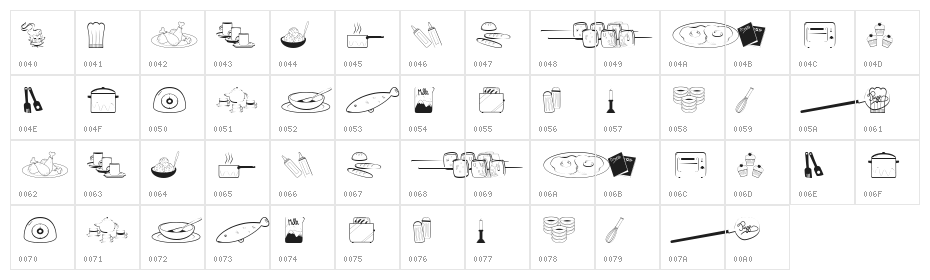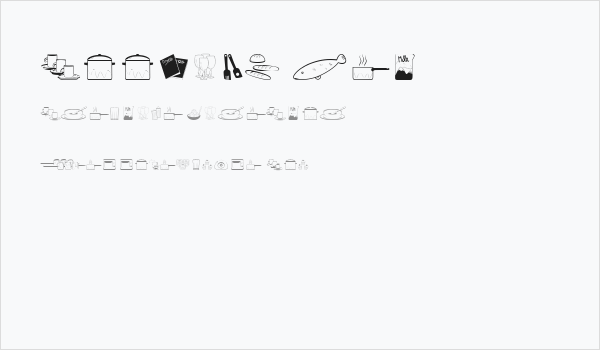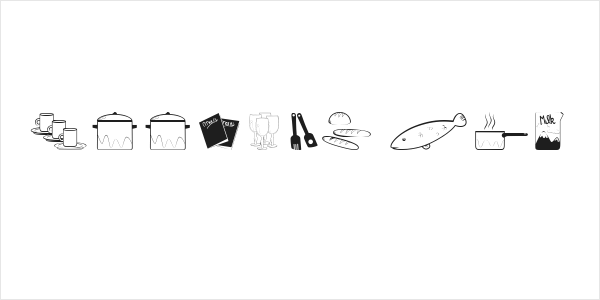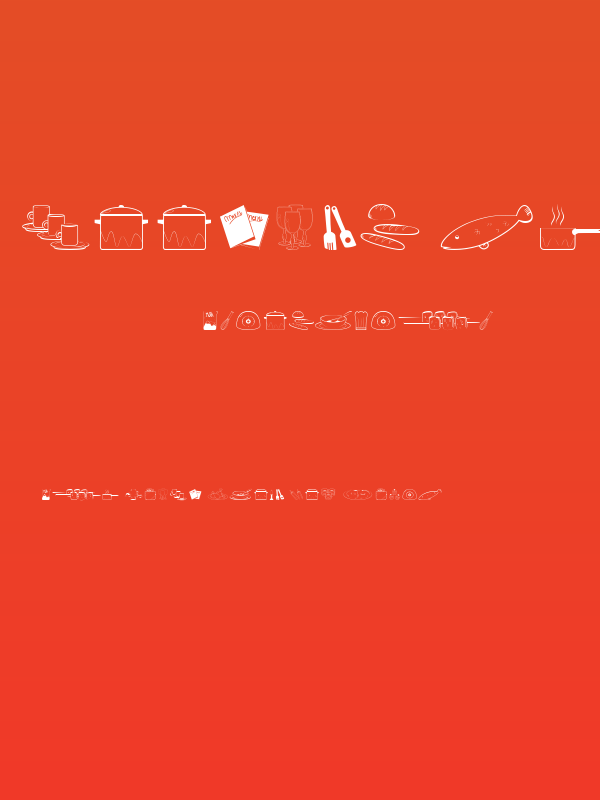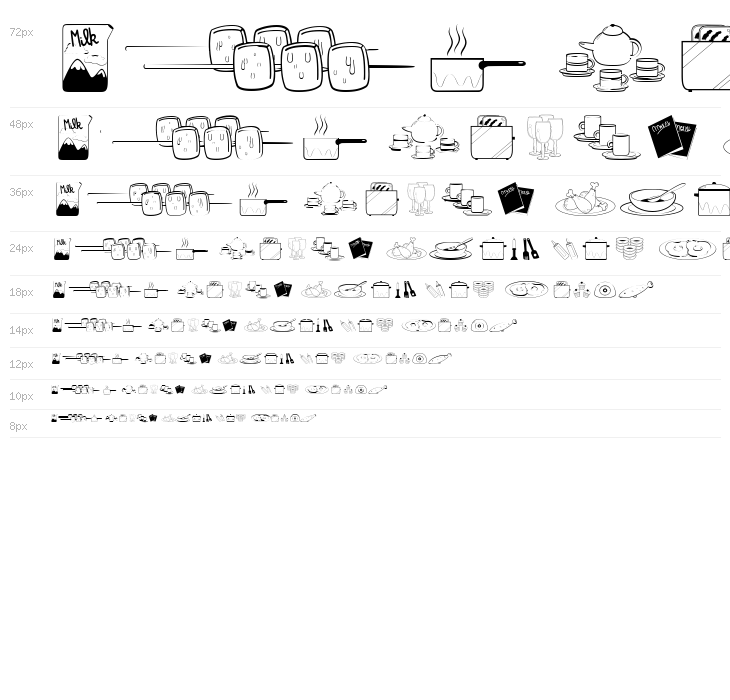
Cooking Set Font
Cooking Set Description
This set of icons features a variety of cooking-related illustrations, each representing different kitchen items and food elements. The icons are designed with a clean and simple line art style, making them versatile for various design applications. The set includes images of kitchen utensils, cooking pots, ingredients, and food items, all depicted with a consistent visual theme. The icons are monochromatic, emphasizing clarity and ease of recognition. This collection is ideal for use in culinary-themed projects, offering a playful yet professional aesthetic.
| Use Case | Logos, Icons, Illustrations |
| Proposed Projects | Ideal for recipe books, cooking apps, restaurant menus, and culinary websites. |